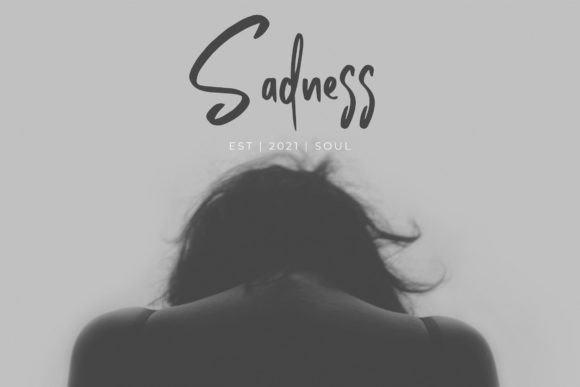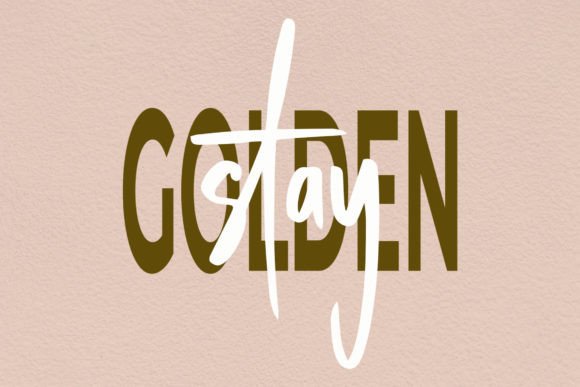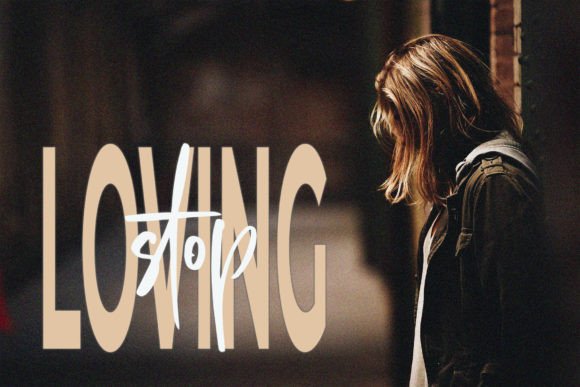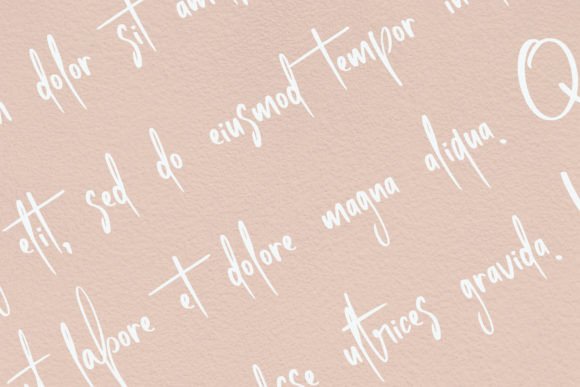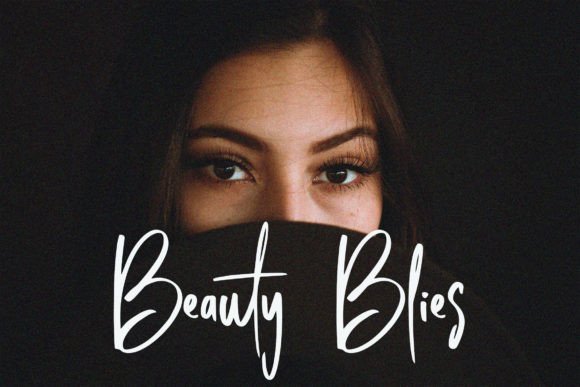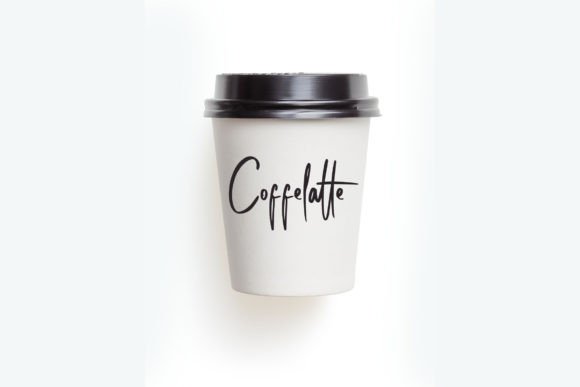
Introduction to Mittanilla Font
Mittanilla – Elegant Handwriting Brush Font Introducing Mittanilla, a captivating handwriting font featuring a stunning brush style.
Crafted with unique and intricate character shapes, this font adds a personal and artistic touch to your designs Whether you’re working on branding, invitations, or creative projects, Mittanilla enhances the visual appeal and brings your ideas to life.
Key Features of Mittanilla Font
Why Choose Mittanilla Font?
Mittanilla Font offers exceptional quality and versatility, making it a valuable addition to your design toolkit. Whether you’re creating for personal projects or commercial use, Mittanilla Font delivers professional results.